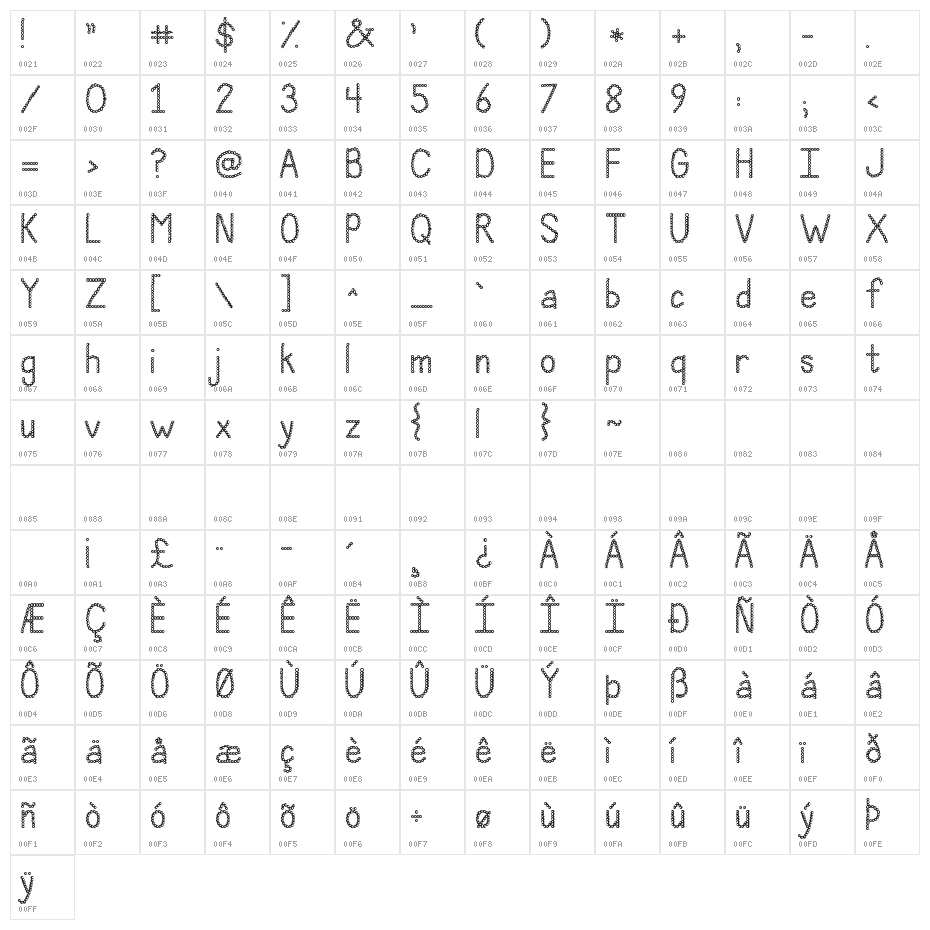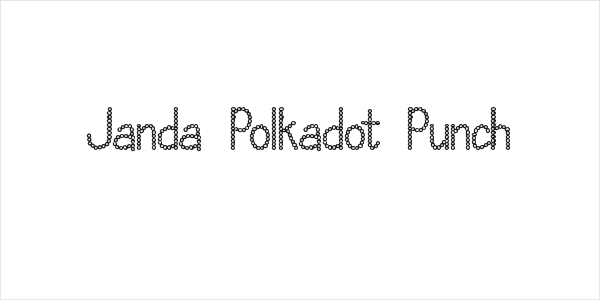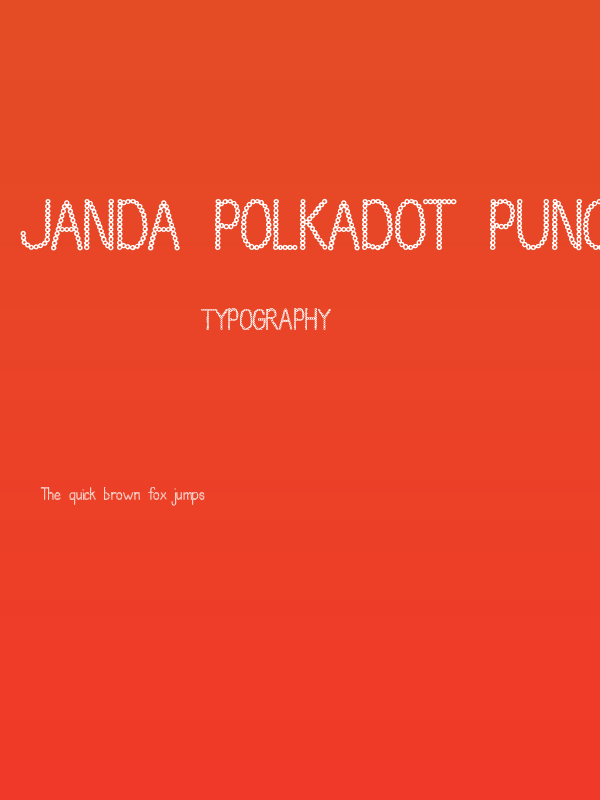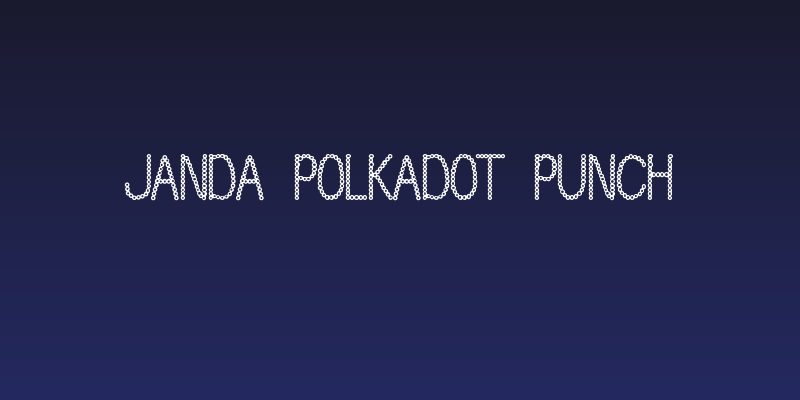
Janda Polkadot Punch Font
Janda Polkadot Punch Description
This playful and whimsical font features characters composed entirely of small, evenly spaced dots, creating a unique polka dot effect. The design is consistent across uppercase and lowercase letters, as well as numbers and special characters, maintaining a cohesive look. The font's dotted style gives it a light-hearted and fun appearance, making it ideal for projects that require a touch of creativity and flair. Its decorative nature makes it stand out, while the uniformity of the dots ensures readability. The font is perfect for adding a playful touch to any design.
| Use Case | Headlines, Logos, Decorative text |
| Proposed Projects | Ideal for children's book covers, party invitations, playful branding, and creative posters. |